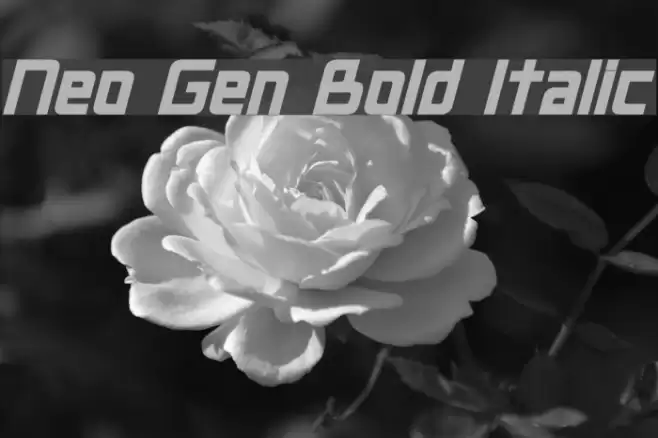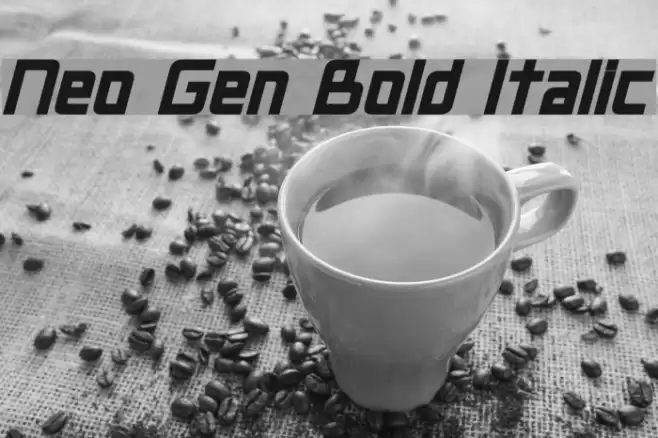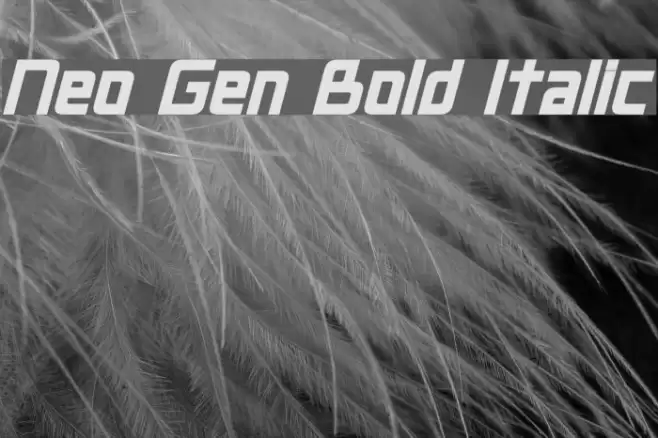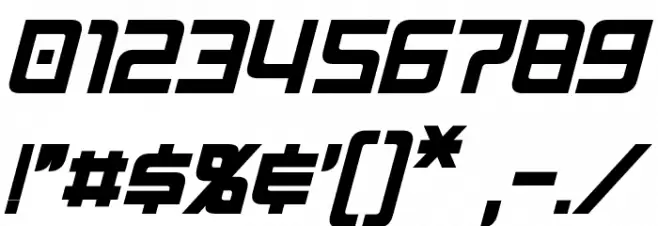
Neo Gen Bold Italic Font
Neo Gen Bold Italic Description
This font features a bold and italicized style with a modern, futuristic aesthetic. The characters are slightly slanted, giving a sense of motion and dynamism. The strokes are thick and consistent, providing a strong presence on the page. The design is clean and geometric, with sharp angles and a uniform structure that enhances readability. The uppercase and lowercase letters maintain a cohesive look, while the numerals and special characters are designed to match the overall style. This font is ideal for projects that require a bold and impactful visual statement.
A bold, italicized font with a modern, dynamic style from Uncategorized fonts.